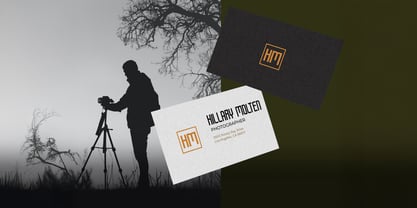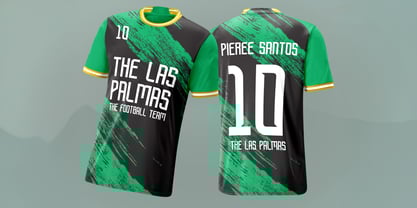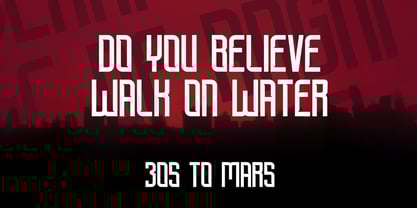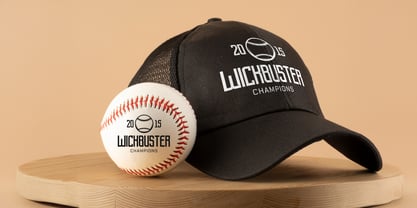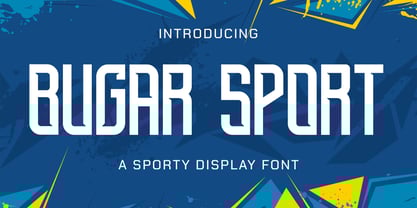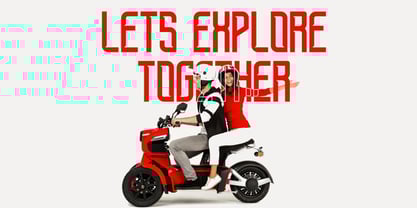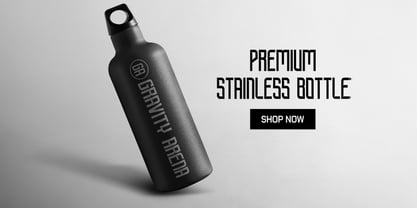
The Bugar Sport Font Family was designed by Virgiawan Listanto and published by Stringlabs Creative Studio. Bugar Sport contains 1 styles. More about this family
Bugar Sport is a powerful and energetic sporty display font that embodies the spirit of an active lifestyle. Designed with strong, confident letterforms and dynamic angles, it captures the essence of movement, strength, and victory. This font is the perfect choice for high-impact projects that need to convey power and vitality. Use it for branding a fitness apparel line, designing a sports team logo, creating bold event posters, or crafting headlines that command attention and drive your message home.